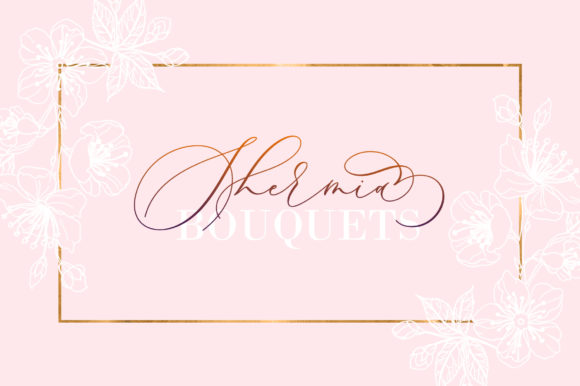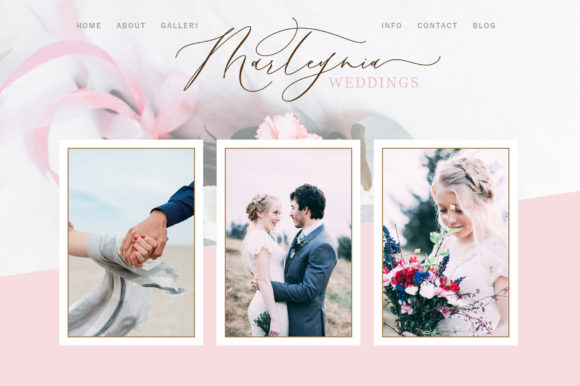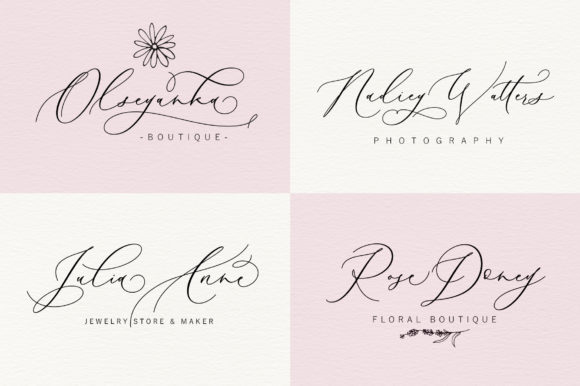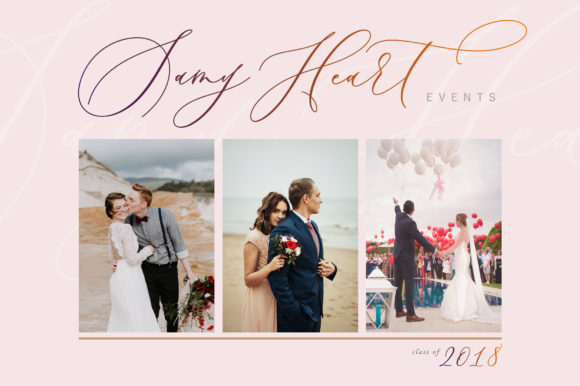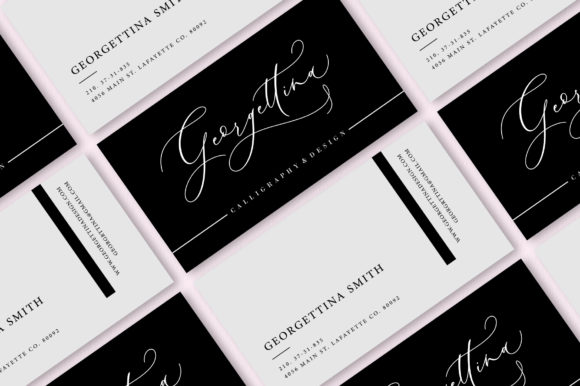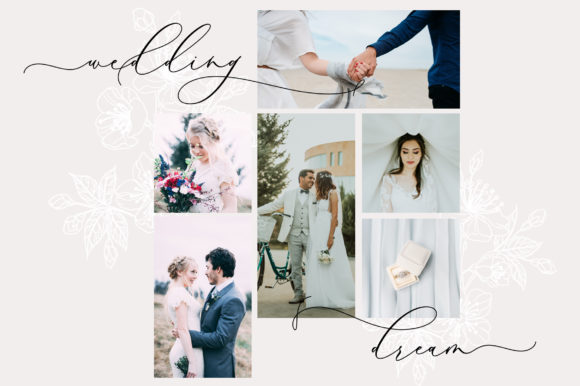
Introducing Amira Madison Font: Elevate Your Designs with Elegance and Sophistication
In the world of typography, a font can make or break a design. For designers and crafters looking to add a touch of elegance and sophistication to their projects, Amira Madison Font is an exceptional choice. This modern script font is meticulously crafted to ensure every letter exudes beauty, making it perfect for a wide range of applications.
What Makes Amira Madison Font Stand Out?
Amira Madison Font is not just another script font; it’s a versatile and stylish addition to any designer’s toolkit. Here are some key features that make it stand out:
- Modern Script Style: With its contemporary script style, Amira Madison Font brings a fresh and modern look to your designs, setting them apart from more traditional fonts.
- Carefully Crafted Letters: Every single letter in Amira Madison Font has been carefully designed to ensure that your text looks beautiful and cohesive, making your designs more visually appealing.
One of the significant advantages of Amira Madison Font is its versatility. Its modern script style makes it suitable for a plethora of projects, including:
- Invitations: Whether it’s a wedding invitation, a birthday party invite, or any other special occasion, Amira Madison Font adds a touch of class and sophistication.
- Greeting Cards: From thank you cards to holiday greetings, this font ensures your cards stand out with its elegant look.
- Posters: For any event or promotion, a poster with Amira Madison Font will surely grab attention.
- Name Cards: Professional and stylish, name cards with this font are perfect for conferences, meetings, and networking events.
- Quotes: Highlight your favorite quotes with a stylish font that makes them pop.
- Blog Headers: Give your blog a professional and attractive look with Amira Madison Font.
- Branding and Logo: For businesses looking for a modern and elegant look, this font can be a great choice for branding and logo design.
- Fashion and Apparel: From clothing labels to fashion blog posts, Amira Madison Font adds a stylish touch.
- Stationery: Elevate your letterheads, notebooks, and journals with this beautiful script font.
Why Choose Amira Madison Font?
With so many fonts available, why should Amira Madison Font be your choice? Here are a few compelling reasons:
- High Versatility: Its suitability for a wide range of projects means you can use it across different design needs, making it a valuable addition to your font library.
- Unique and Engaging: In a world where designs can quickly become generic, Amira Madison Font helps you stand out with its unique and engaging style.
Tips for Using Amira Madison Font
To get the most out of Amira Madison Font, consider the following tips:
- Pair it Wisely: Combine Amira Madison Font with complementary fonts to create visual interest and hierarchy in your designs.
- Play with Swashes: Take advantage of the swashes available in PUA encoded fonts to add flair to your text.
- Experiment with Colors: While the font itself is elegant, experimenting with different colors can further enhance its beauty and adapt it to your project’s theme.
| Font Name | Amira Madison Font |
| Author | Jamalodin |
Amira Madison Font is more than just a script font; it’s a tool that can elevate your designs, making them more elegant, sophisticated, and engaging. Its versatility, combined with its modern script style and PUA encoding, makes it an excellent choice for designers and crafters looking to add a touch of class to their projects. Whether you’re working on invitations, posters, branding, or any other design project, Amira Madison Font is sure to make your text look beautiful and stand out from the crowd.